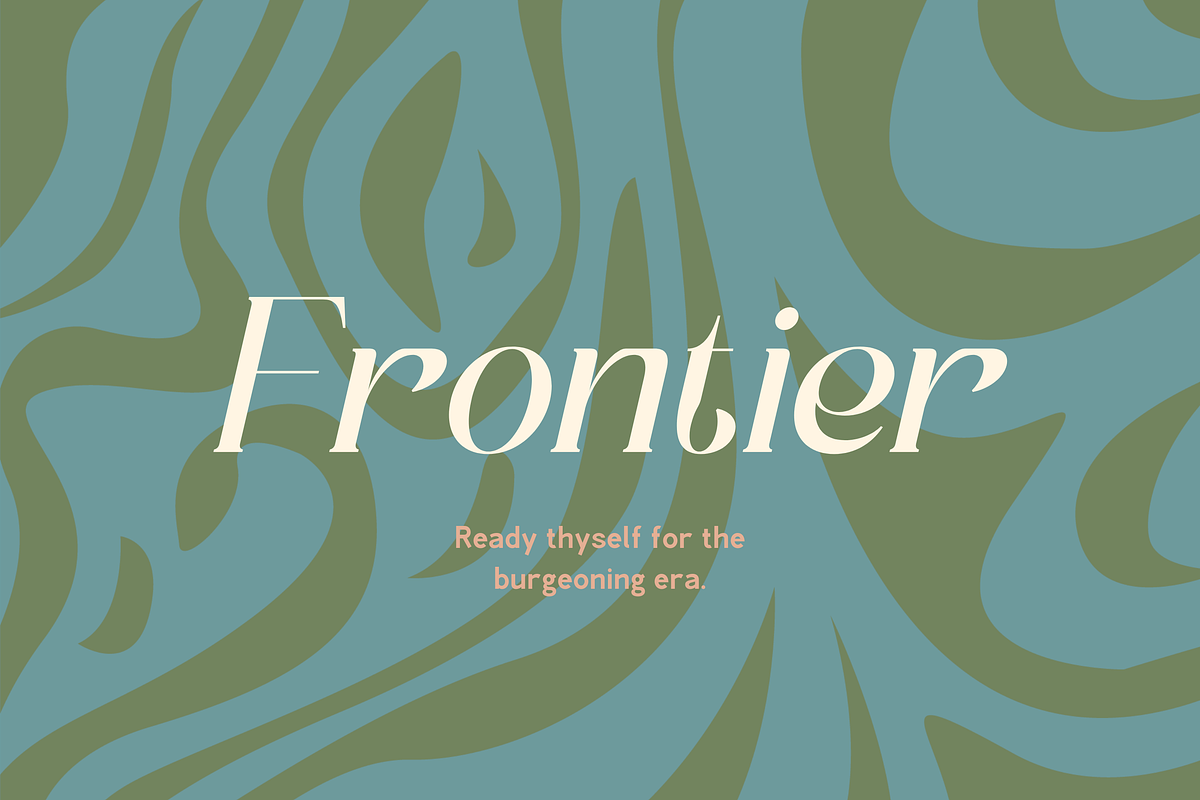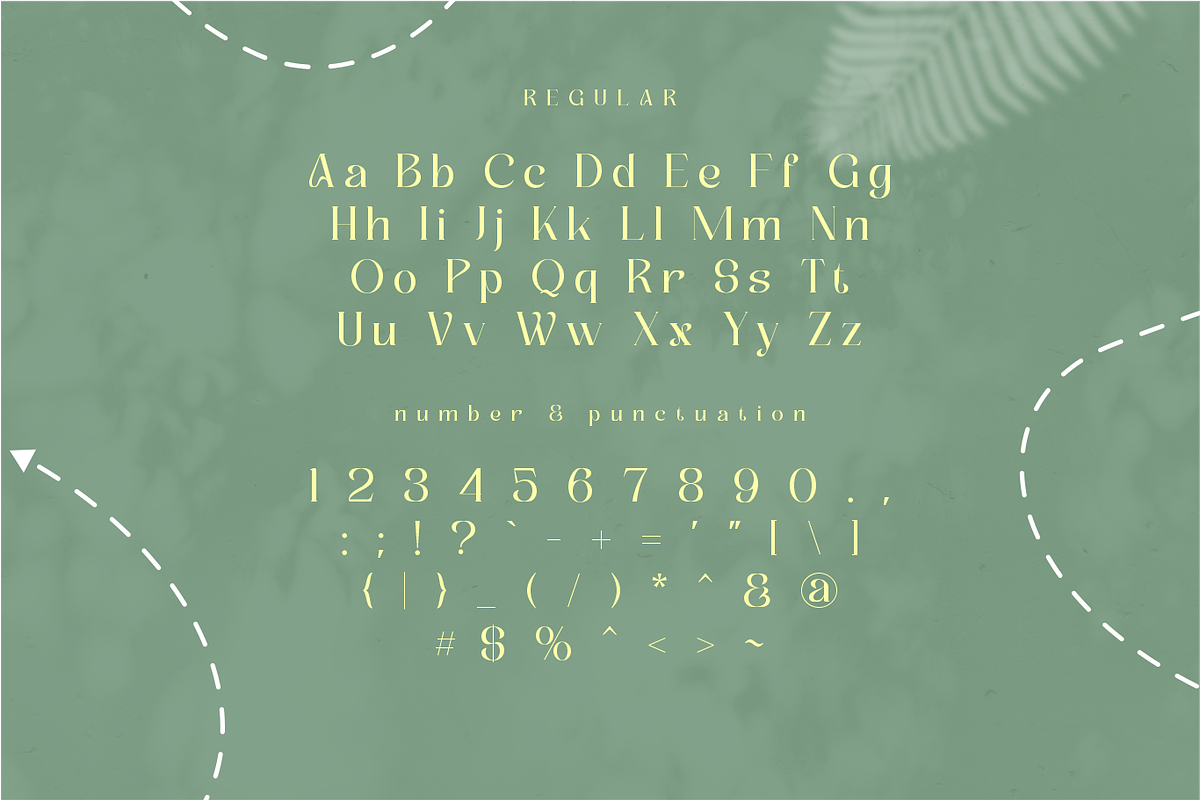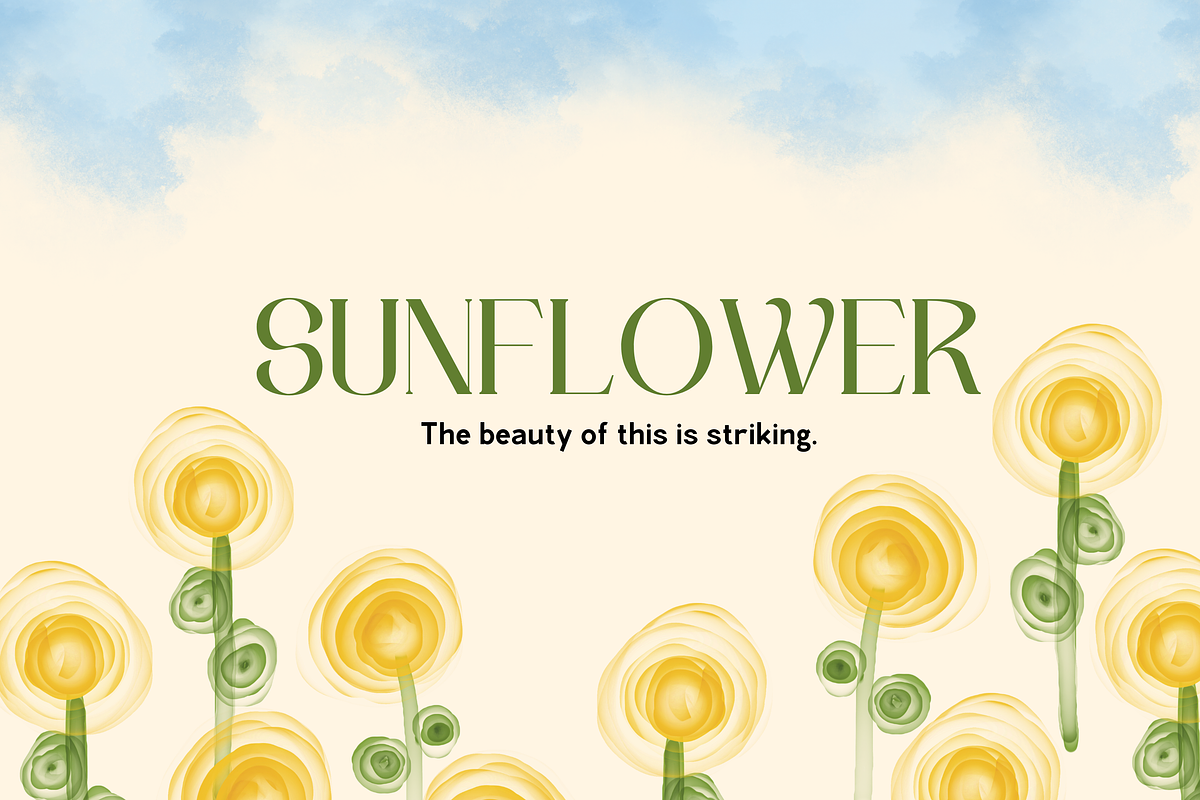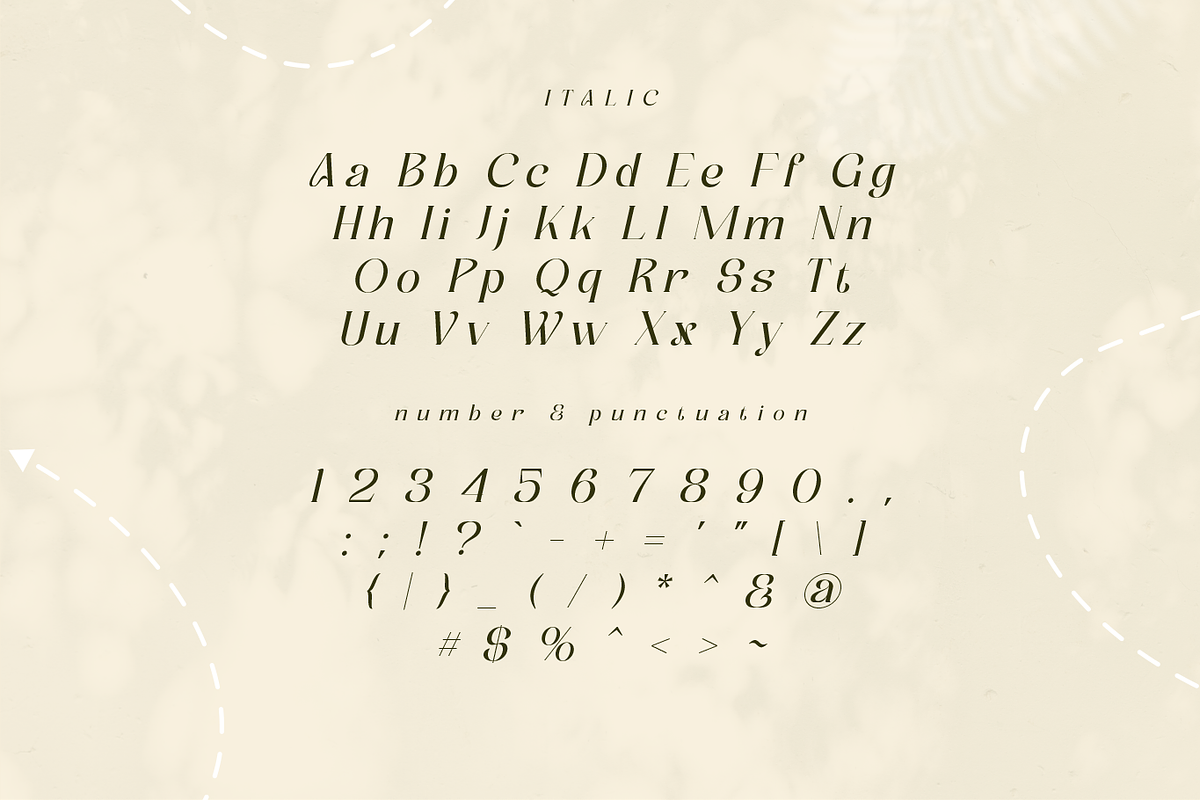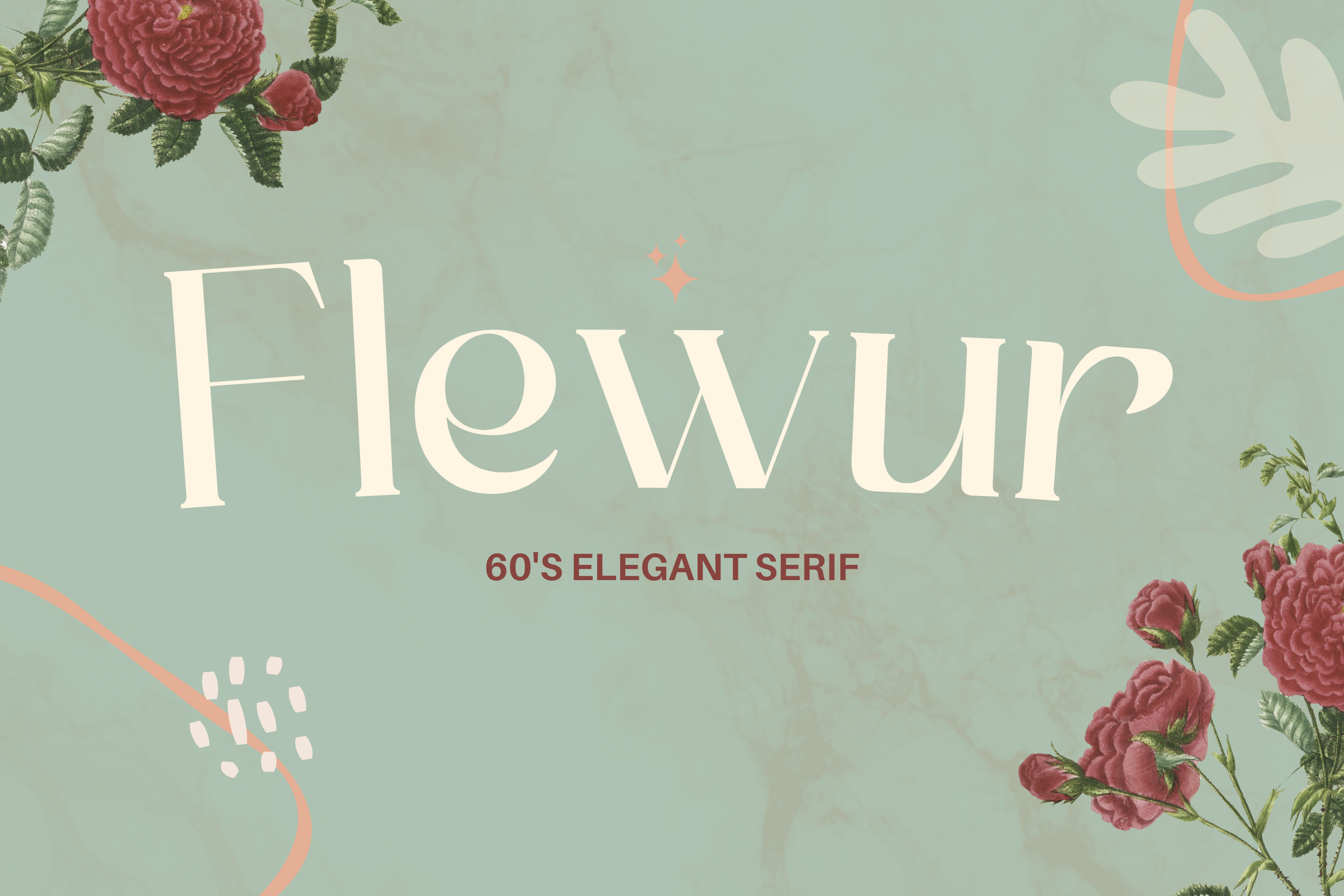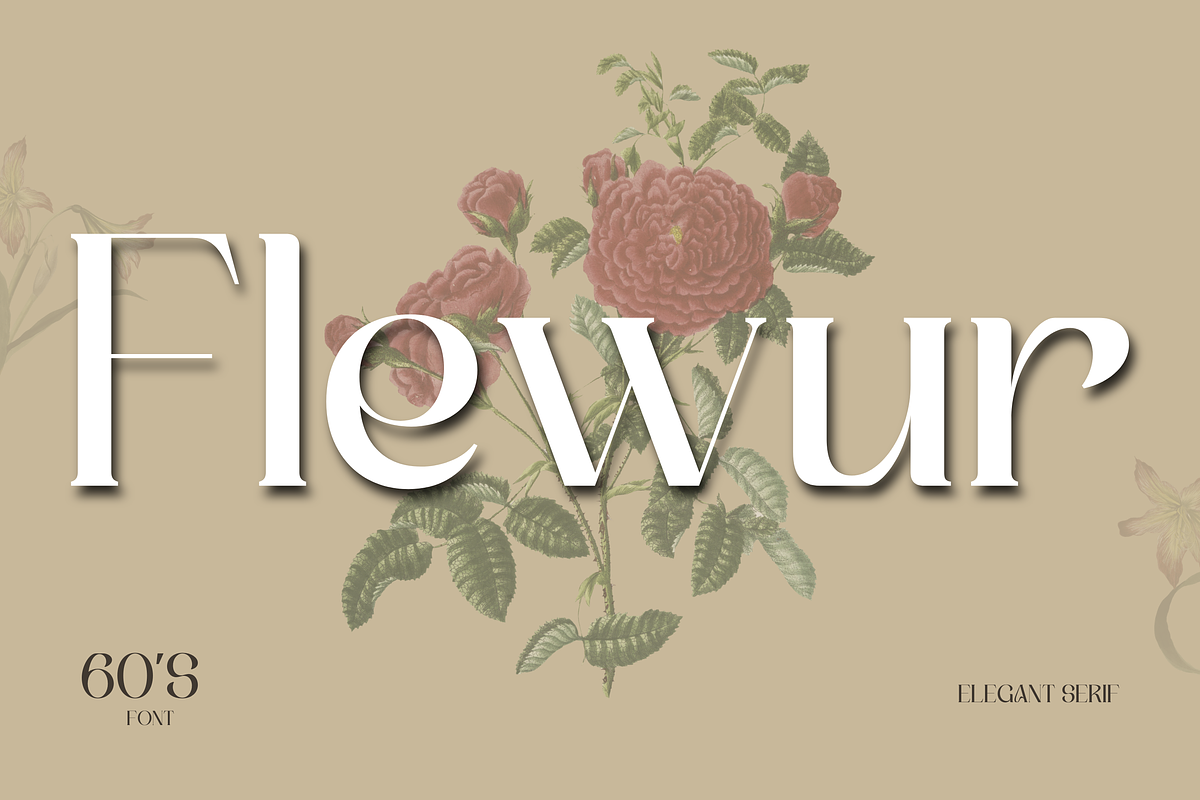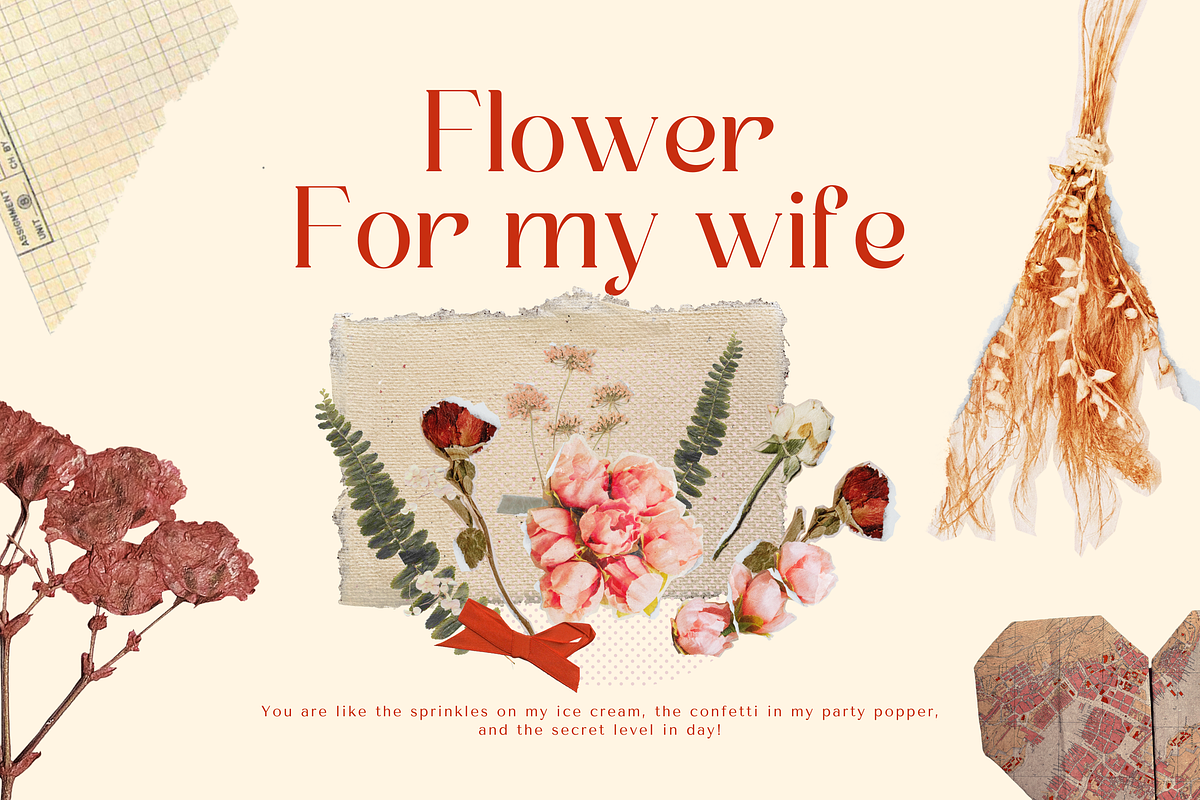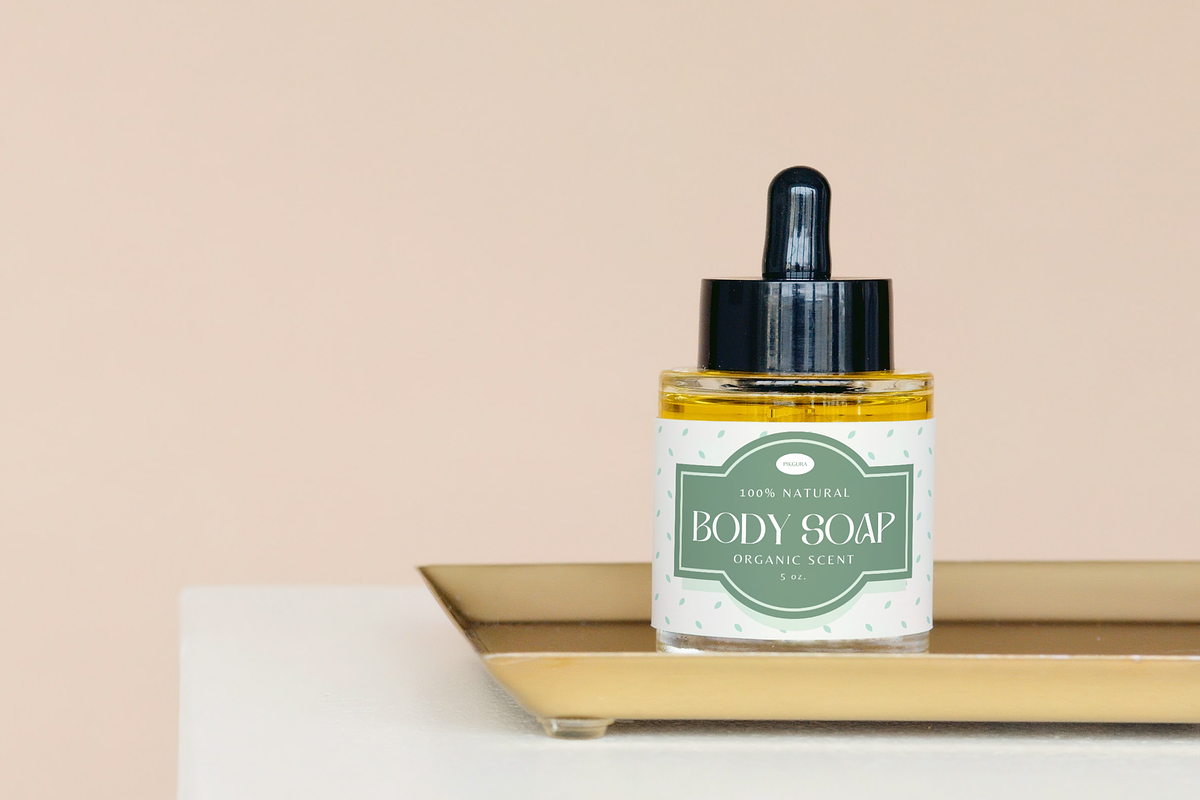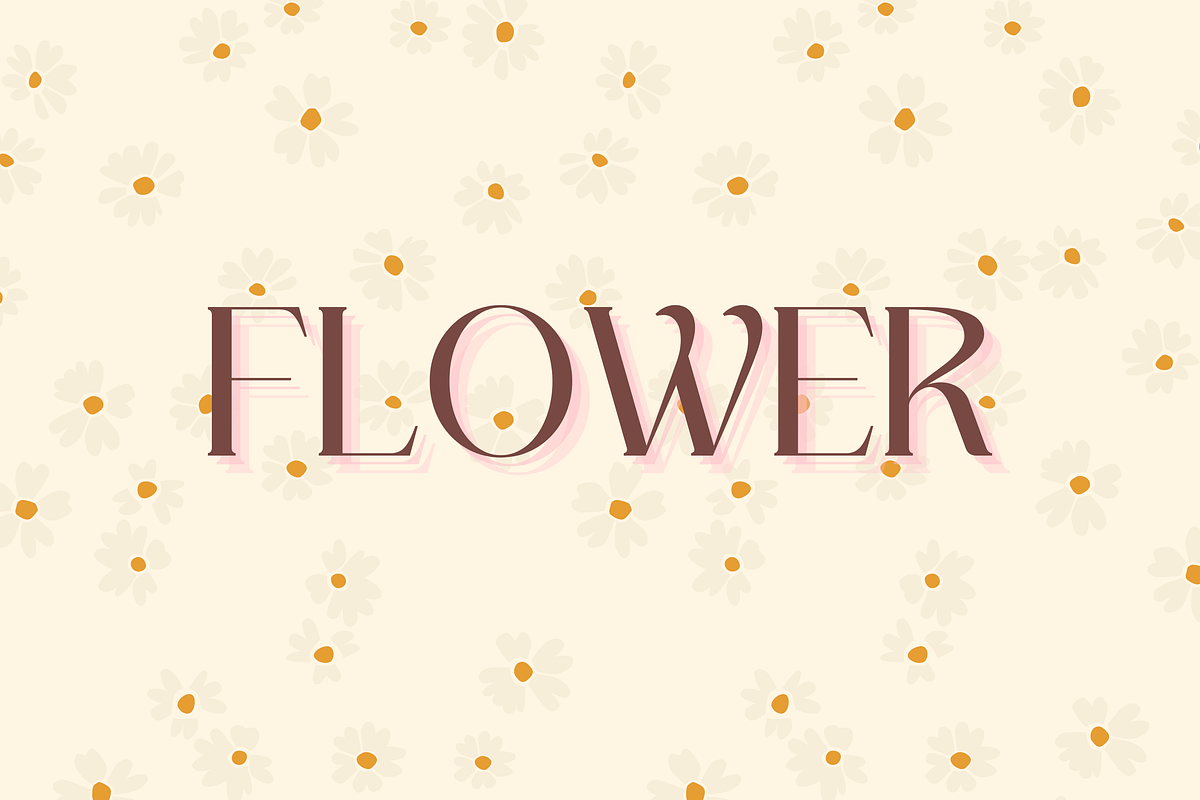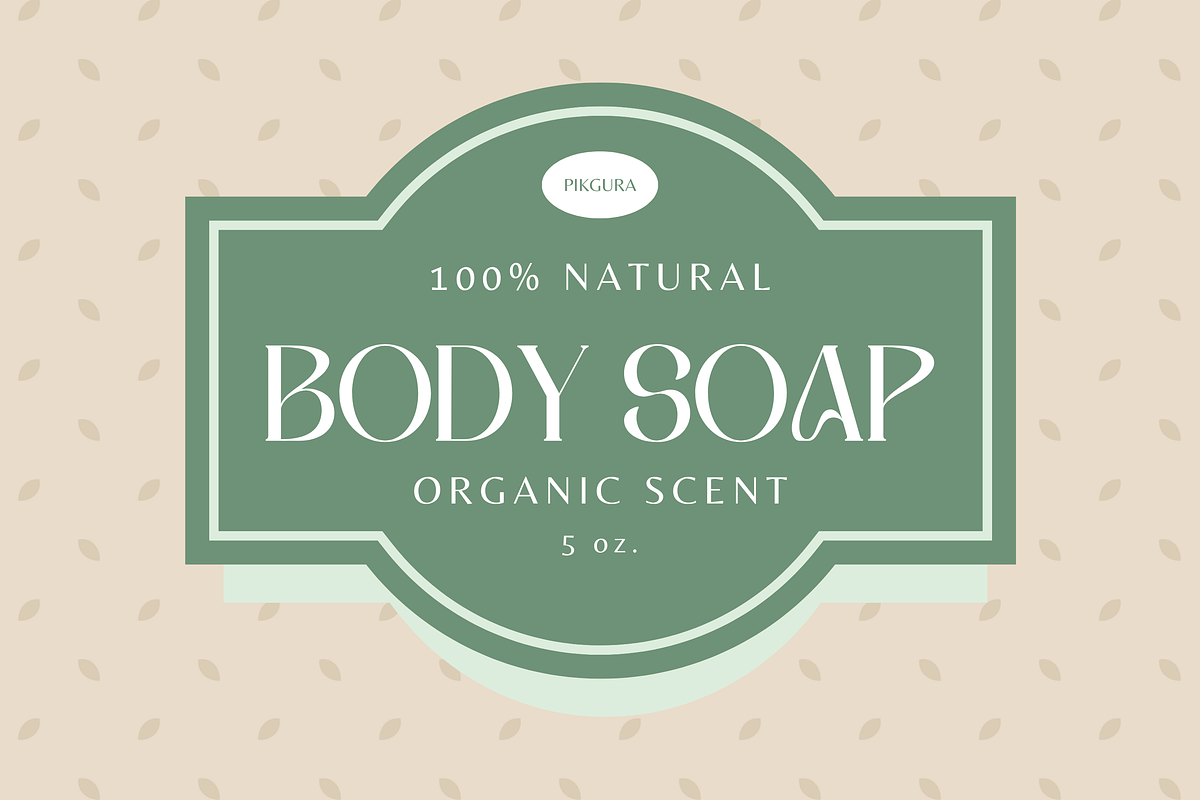
Flewur 60's Elegant Serif Font
Introducing "Flewur", a 60's elegant serif typeface that merges classic style with a fresh.
Flewur offers a classic touch to give a unique impression to your design. Plus, its simplicity makes it easy to read and comprehend, so you can be sure your message is getting across loud and clear. Flewur has a regular and italic style. This font has arrived to take your branding and poster design to the next level!